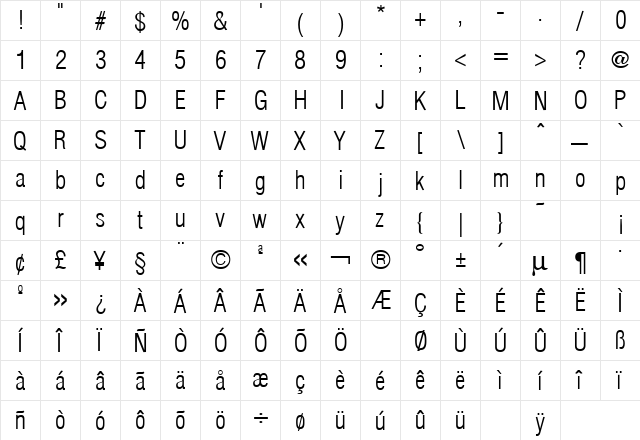
Hallmarke Condensed Light Regular Font Preview
Design Context for Hallmarke Condensed Light Typeface
Hallmarke Condensed Light offers clean, dependable letterforms without strong stylistic allegiance, making it a practical choice for designers who need flexibility. The delicate stroke weight brings airiness and refinement to layouts. Its narrow stance lets it pack a punch even in space-constrained designs.